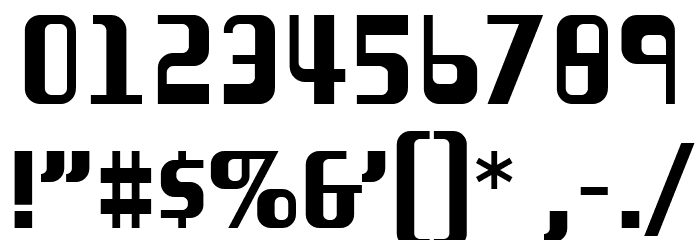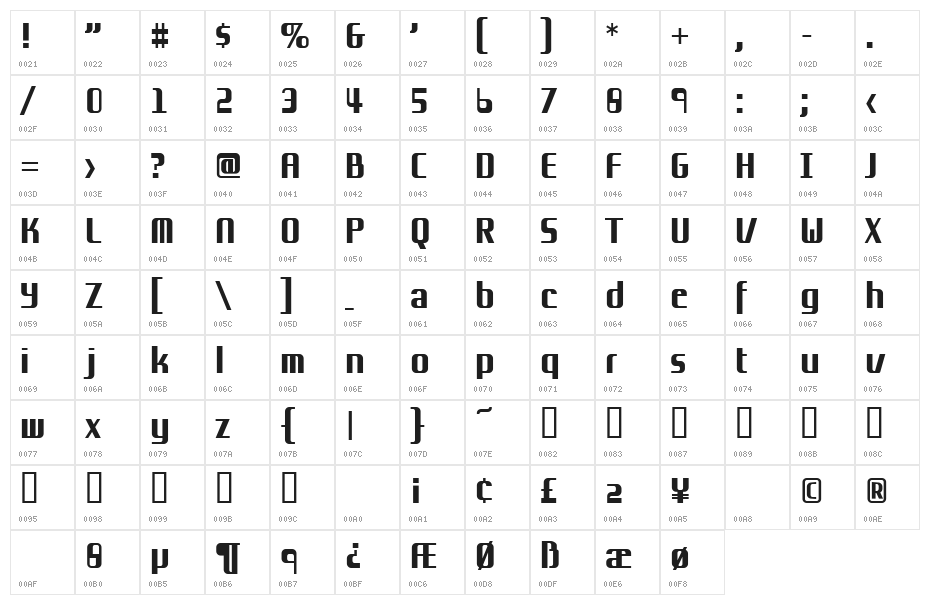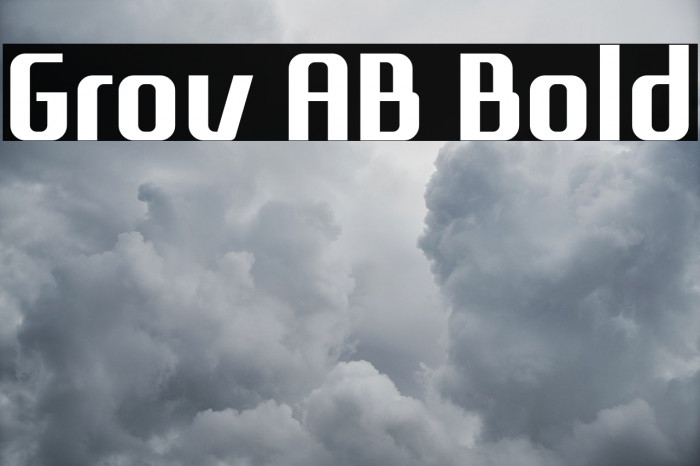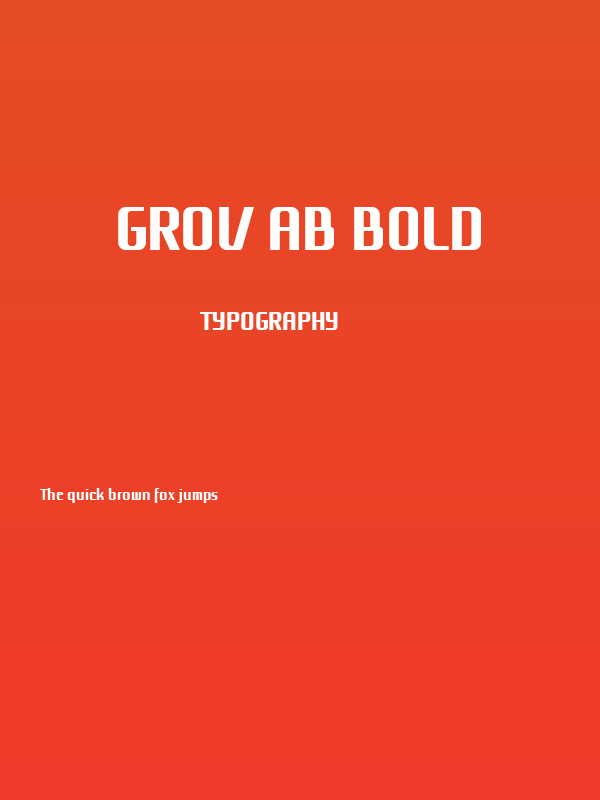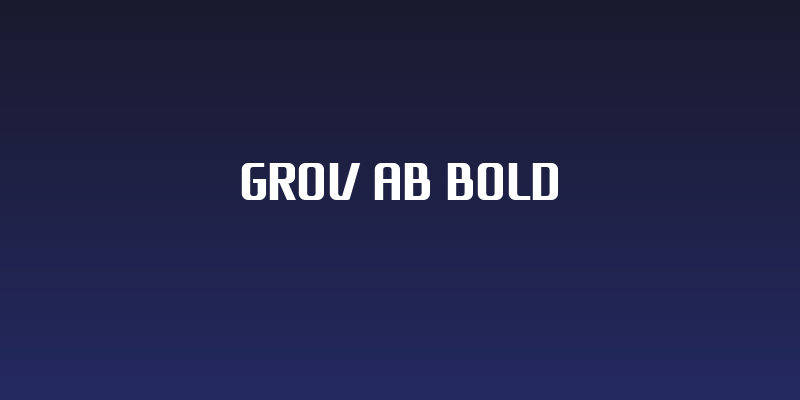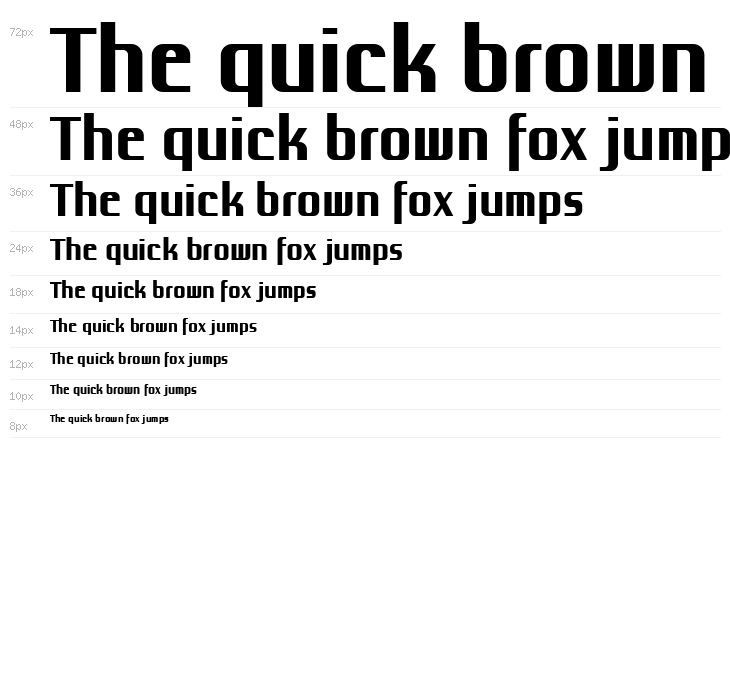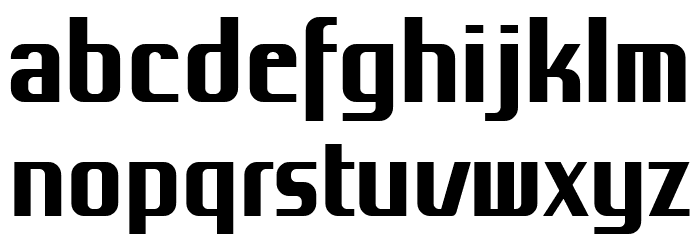
Grov AB Bold Font
Grov AB Bold Description
This font features a bold and modern design with a strong geometric influence. The characters are uniformly thick, providing a consistent and powerful presence on the page. The uppercase letters are tall and slightly condensed, while the lowercase letters maintain a similar width, creating a harmonious balance. The numerals are clear and distinct, making them easily readable. Special characters are designed with the same boldness, ensuring they stand out. The overall style is clean and contemporary, suitable for various digital and print applications.